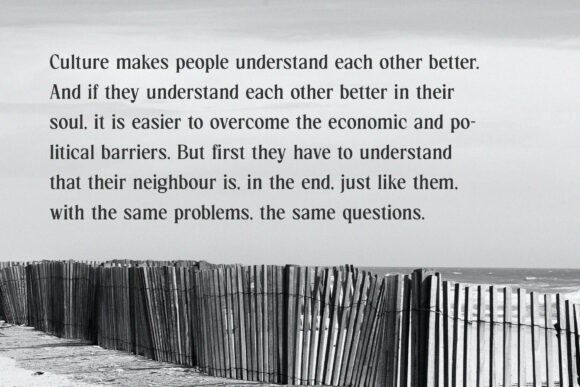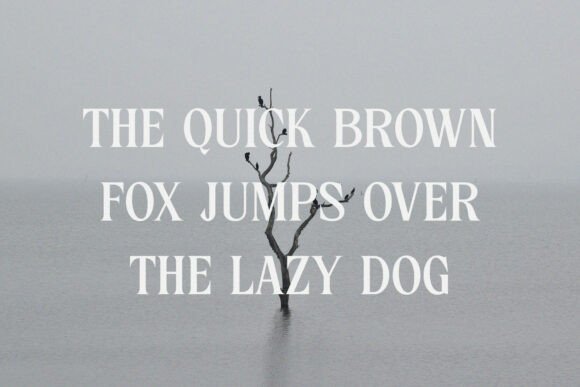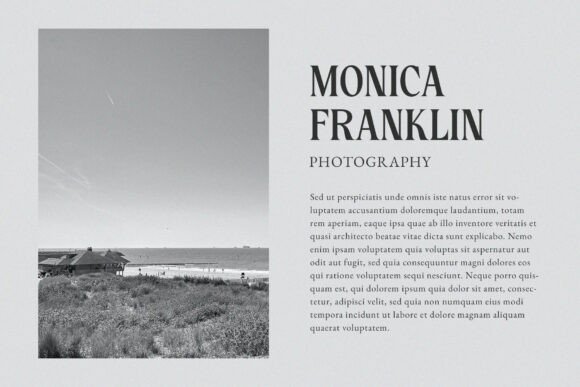
Introduction to Nelington Font Font
Fonts play a crucial role in design, and the Nelington Font font is a typeface that brings both character and versatility to any project. Whether you’re working on a branding project, a website, or a print design, the Nelington Font font offers a unique style that can elevate your work.
| π€ Author | Ariya Works Studio |
Nelington is a stylish, luxurious serif font that exudes sophistication and timeless elegance.
With refined curves and sharp details, itβs ideal for high-end branding, editorials, and packaging The classic structure paired with modern flair creates a distinguished presence that elevates any visual presentation with grace.
Key Features of Nelington Font Font
Why Choose Nelington Font Font?
The Nelington Font font is more than just a typeface β it’s a design tool that helps you communicate your message with style and clarity. Its unique character set and versatile design make it suitable for a wide range of applications, from elegant invitations to bold headlines.
With its carefully crafted letterforms and balanced proportions, the Nelington Font font ensures readability and visual appeal across all mediums.
What makes Nelington Font font special?
The Nelington Font font stands out with its unique design, exceptional readability, and versatility across various design applications.